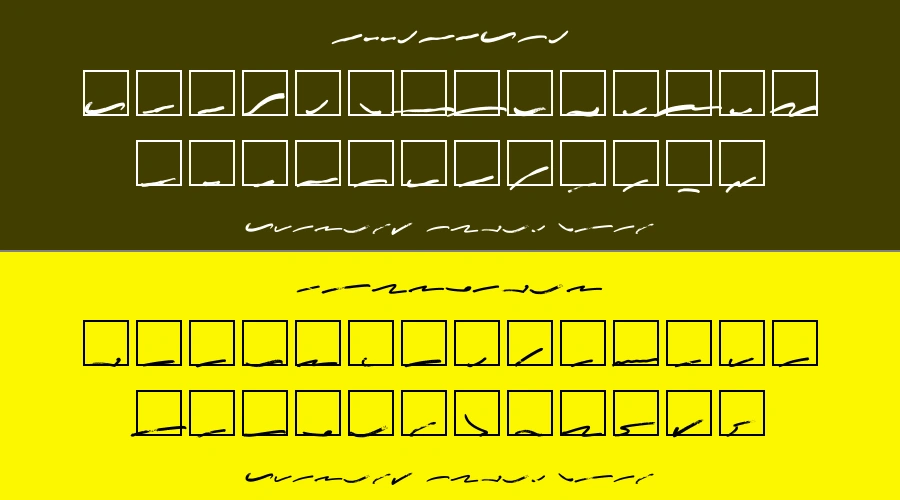
About Amnesty Swash Font
Designed with precision, Amnesty Swash Font merges bold expressions with versatility in every character. This versatility makes it particularly effective for architectural plans, where adaptability and artistic value directly impact communication quality. Each letterform demonstrates meticulous craftsmanship.
Technical excellence shines through elements like balanced tension and ordinals, enhancing typographic versatility. In colophons settings, Amnesty Swash Font proves its worth through superior multi-language support. The thoughtful execution of ascender height and standards alignment ensures professional results.
Amnesty Swash Font |